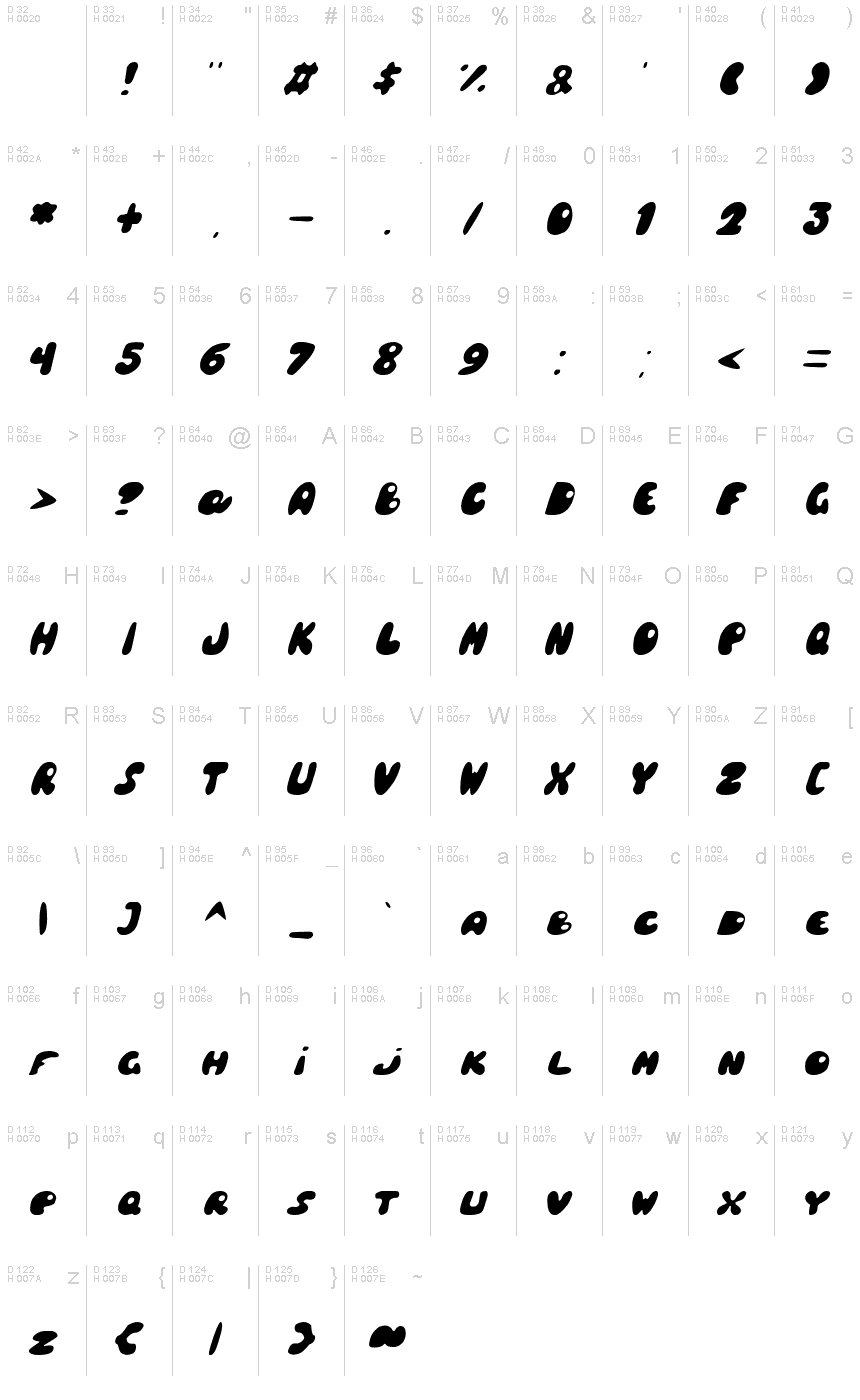
Balloony Italic
Balloony Italic, designed by the talented Zomorsky, is a captivating display font that adds a touch of whimsy to any project. With its playful yet polished cartoon style, this extra-bold typeface is perfect for children’s books, comic strips, and animated logos. Its semi-expanded width allows for easy readability while maintaining a distinctive aesthetic. Whether you're designing a vibrant poster or creating an eye-catching website, Balloony Italic is the ideal choice to infuse your designs with charm and a dash of fun.